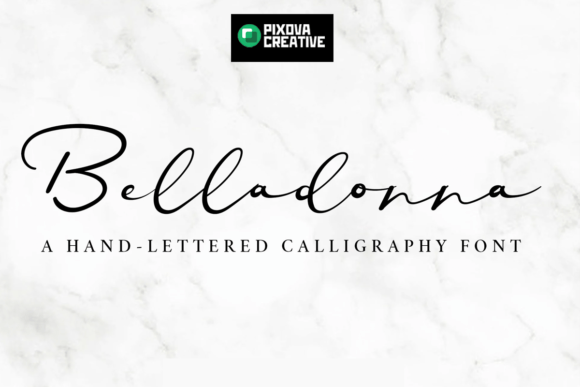
Belladonna Script Font: Elevate Your Design with Elegance and Sophistication
The Belladonna Script Font is a stunning, hand-drawn script font that exudes elegance and sophistication. Its unique style makes it perfect for adding a touch of charm to any design, making it a popular choice among designers and crafty individuals alike. In this article, we’ll dive into the world of Belladonna Script Font, exploring its features, benefits, and uses, as well as provide tips on how to incorporate it into your design projects.
What is Belladonna Script Font?
Belladonna is a special, elegant font that looks like beautiful, hand-drawn script. Its flowing lines, intricate details, and classic style make it a versatile font that can be used in a variety of design projects, from wedding invitations and branding materials to packaging and digital media.
The font’s unique style is characterized by its delicate strokes, sweeping curves, and ornate flourishes, which give it a distinctive, hand-crafted look. Whether you’re looking to add a touch of luxury, whimsy, or romance to your design, Belladonna Script Font is the perfect choice.
Features of Belladonna Script Font
Belladonna Script Font boasts a range of features that make it a standout font in the world of typography. Some of its key features include:
- Hand-drawn script style: Belladonna’s hand-drawn script style gives it a unique, organic look that’s perfect for designs that require a personal touch.
- Elegant and sophisticated: The font’s elegant and sophisticated style makes it perfect for high-end designs, such as luxury branding and wedding invitations.
- Intricate details: Belladonna’s intricate details, such as its delicate strokes and ornate flourishes, add a level of depth and visual interest to any design.
- Versatile: The font’s versatility makes it suitable for use in a range of design projects, from digital media to print materials.
Benefits of Using Belladonna Script Font
So, why choose Belladonna Script Font for your design projects? Here are just a few benefits of using this stunning font:
- Adds elegance and sophistication: Belladonna’s elegant and sophisticated style instantly elevates any design, making it perfect for high-end brands and luxury products.
- Creates a personal touch: The font’s hand-drawn script style adds a personal touch to any design, making it perfect for designs that require a human element.
- Versatile: Belladonna’s versatility makes it suitable for use in a range of design projects, from digital media to print materials.
- Easy to read: Despite its intricate details, Belladonna Script Font is surprisingly easy to read, making it perfect for body text and headlines.
Uses of Belladonna Script Font
Belladonna Script Font is a versatile font that can be used in a range of design projects, including:
- Wedding invitations and stationery: Belladonna’s elegant and sophisticated style makes it perfect for wedding invitations, save-the-dates, and other stationery.
- Luxury branding and packaging: The font’s luxurious style makes it perfect for high-end brands and luxury products.
- Digital media: Belladonna Script Font can be used in digital media, such as social media graphics, blog headers, and email newsletters.
- Print materials: The font can be used in a range of print materials, including brochures, flyers, and posters.
Tips for Using Belladonna Script Font
Here are a few tips for using Belladonna Script Font in your design projects:
- Use it sparingly: Belladonna Script Font is a statement font, so use it sparingly to avoid overwhelming your design.
- Pair it with a sans-serif font: Pairing Belladonna with a sans-serif font creates a beautiful contrast that adds visual interest to your design.
- Experiment with colors: Belladonna Script Font looks stunning in a range of colors, so don’t be afraid to experiment and find the perfect hue for your design.
- Pay attention to font size: Belladonna Script Font can be quite intricate, so make sure to adjust the font size accordingly to ensure it’s easy to read.
Belladonna Script Font is a stunning, elegant font that adds a touch of sophistication and charm to any design. Its unique style, intricate details, and versatility make it perfect for a range of design projects, from wedding invitations and luxury branding to digital media and print materials.
Whether you’re a designer, crafty individual, or simply someone who appreciates beautiful typography, Belladonna Script Font is a must-have font in your collection. So why not give it a try and see how it can elevate your designs to the next level?